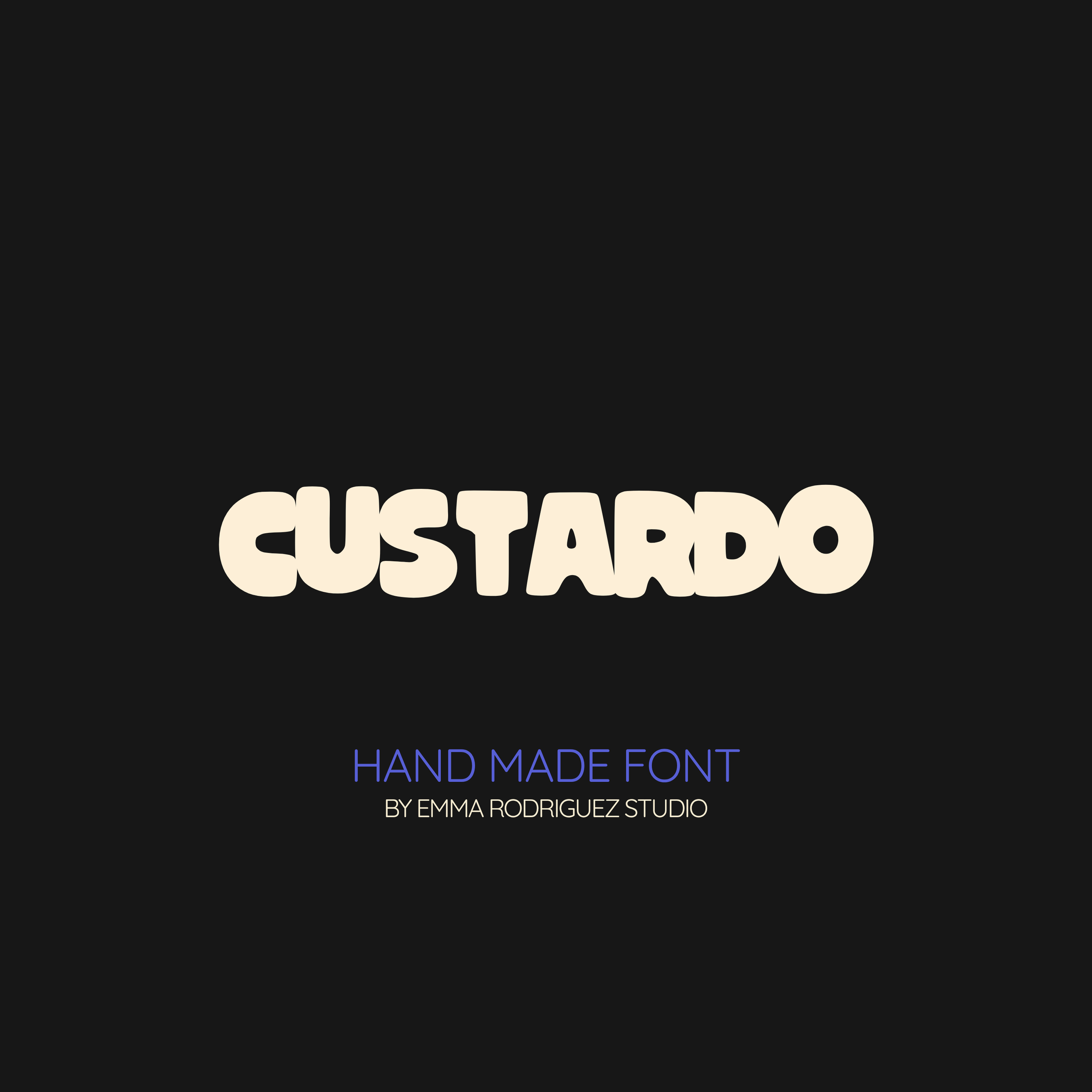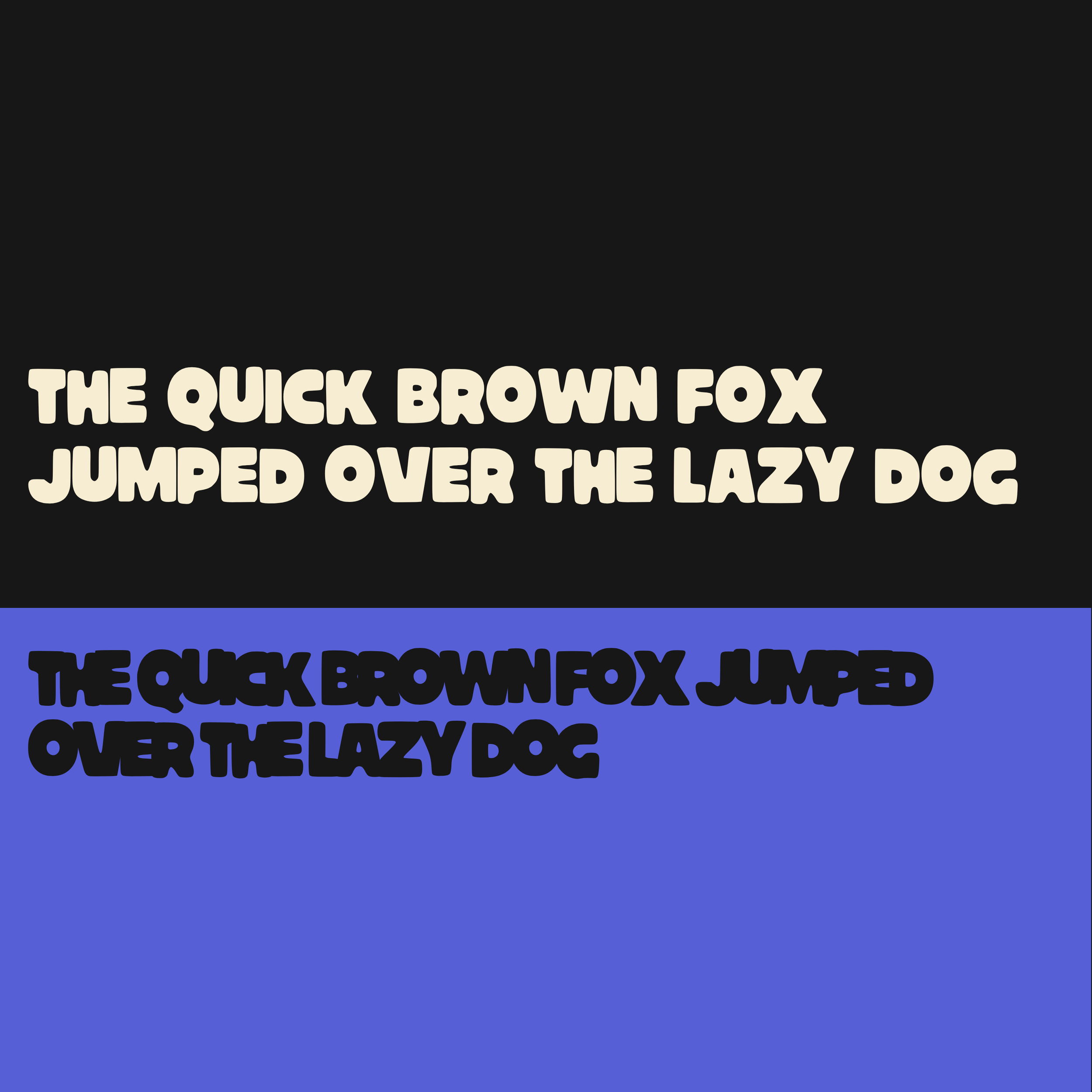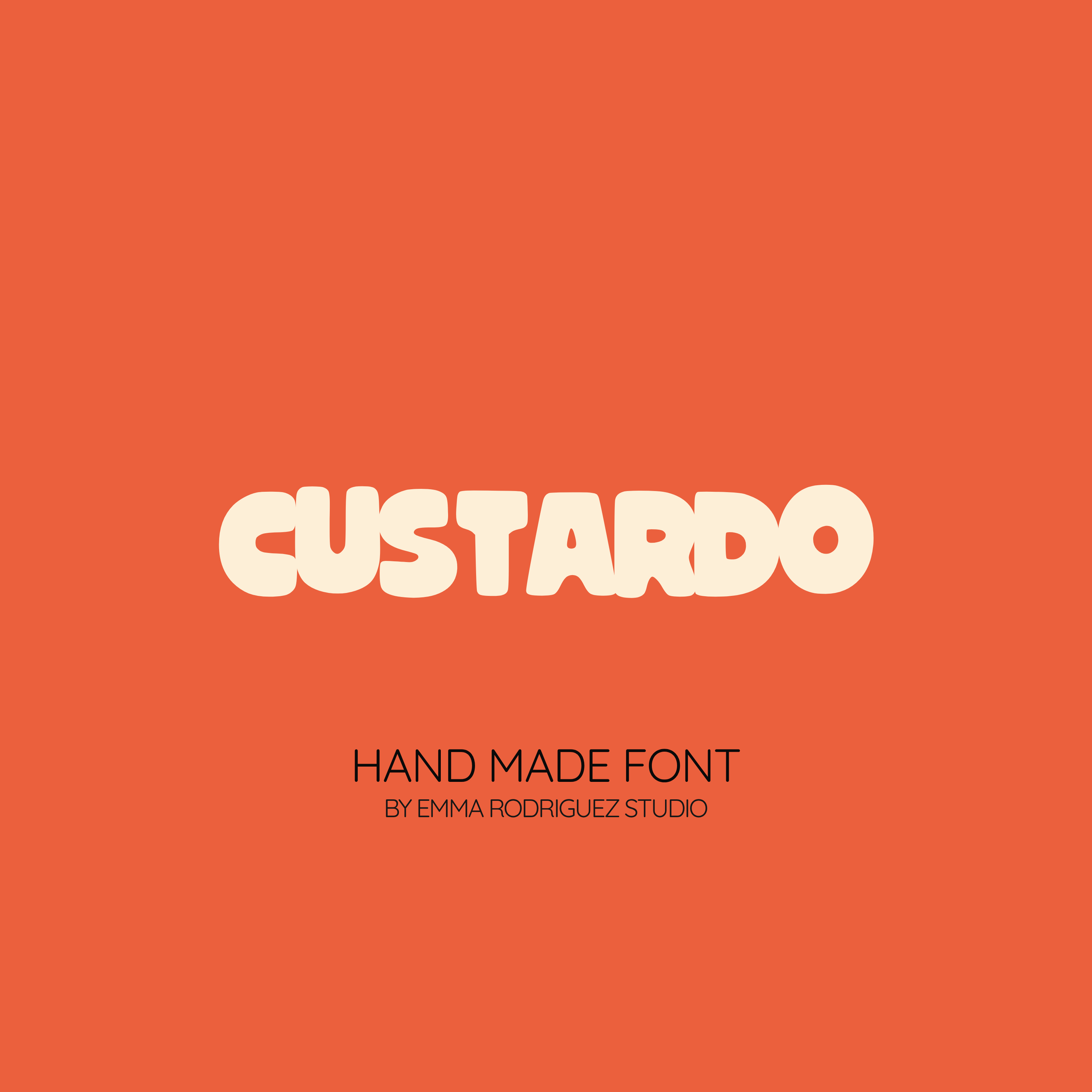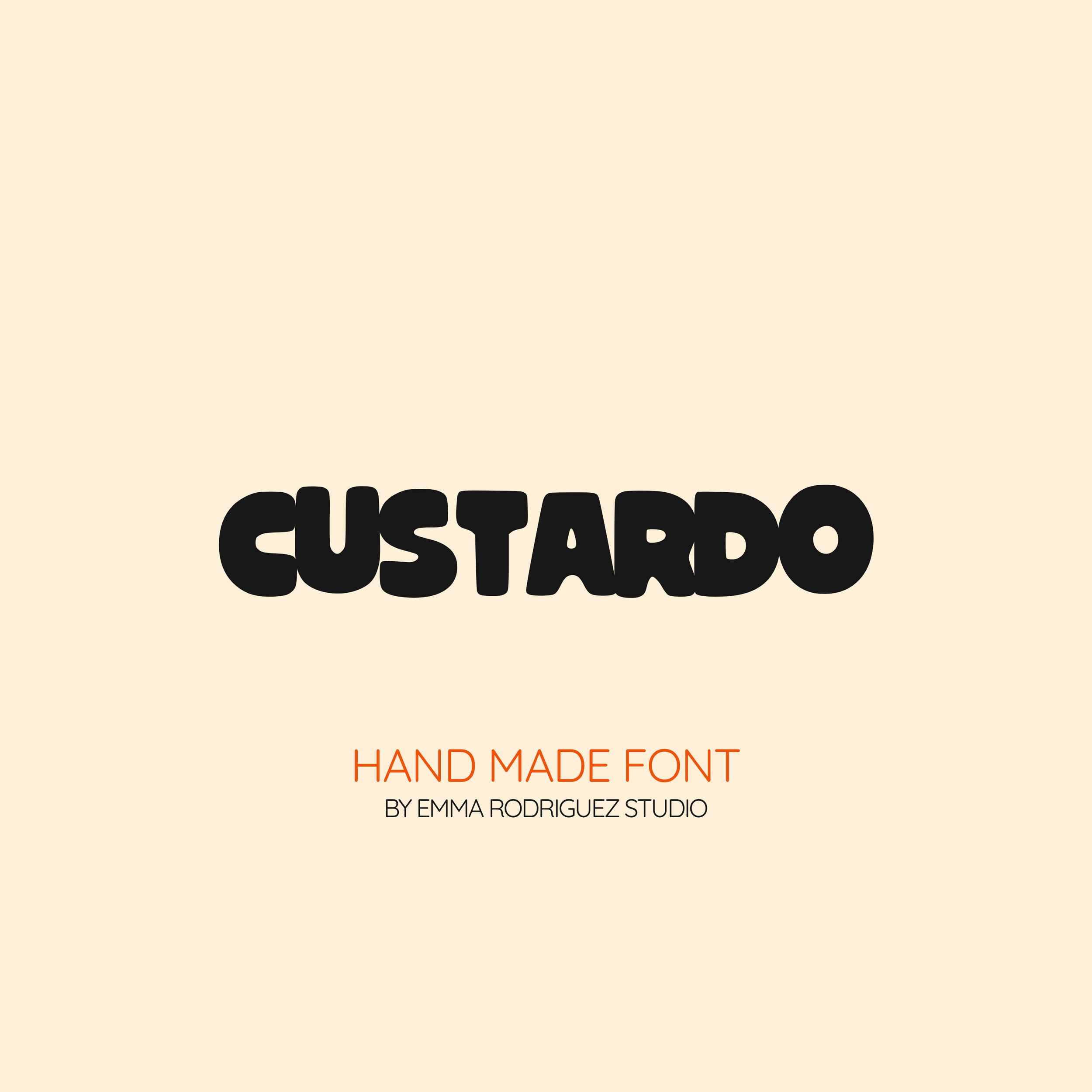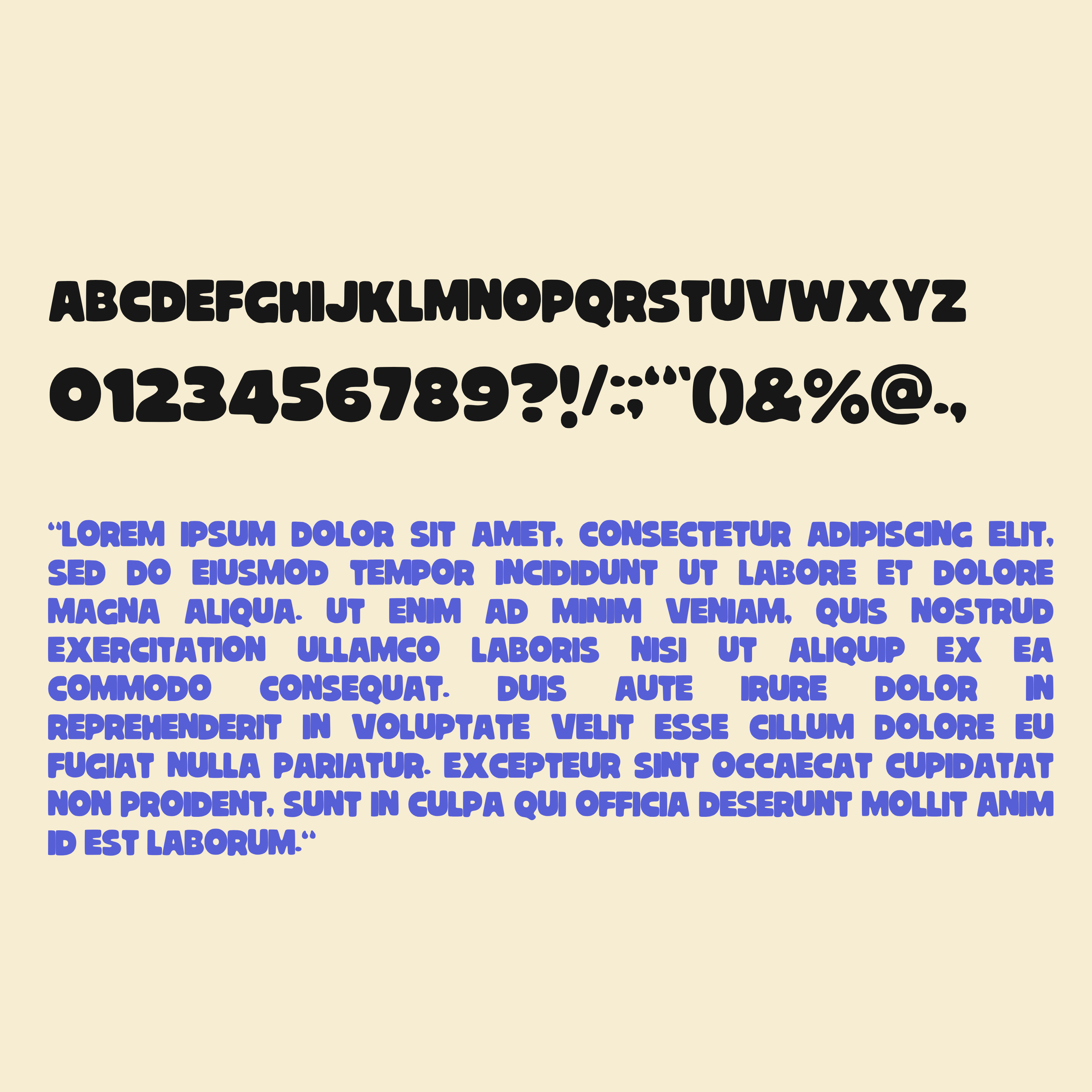
Custardo Font - Thick Bold Fun Bubbly Type
Meet Custardo, a chunky, soft edged display font that leans fully into bold, playful weight. It takes simple rounded letterforms and pushes them to their limits, creating something that feels inflated, heavy, and slightly off balance in the best way.
Still clean. Still readable. Just thicker, rounder, and way more fun.
This all uppercase typeface is built with smooth curves, tight spacing, and a solid, almost squishy presence. It has that bubbly, confident look that instantly stands out without needing texture or decoration.
Perfect when you want something bold, friendly, and impossible to ignore.
• All UPPERCASE letters
• Numbers and basic punctuation
Use it for:
• Bold branding
• Poster headlines
• Album artwork
• Statement packaging
• Stickers
• Social media graphics
• Zines and indie publications
• Fun merchandise
Fonts by Emma Rodriguez Studio are made to have personality. Expect naive shapes, wonky details, playful imperfections and type that doesn’t take itself too seriously. They’re not designed for clean, minimal branding. They’re for bold, quirky, maximalist projects that need something a little stranger, sillier and more expressive.